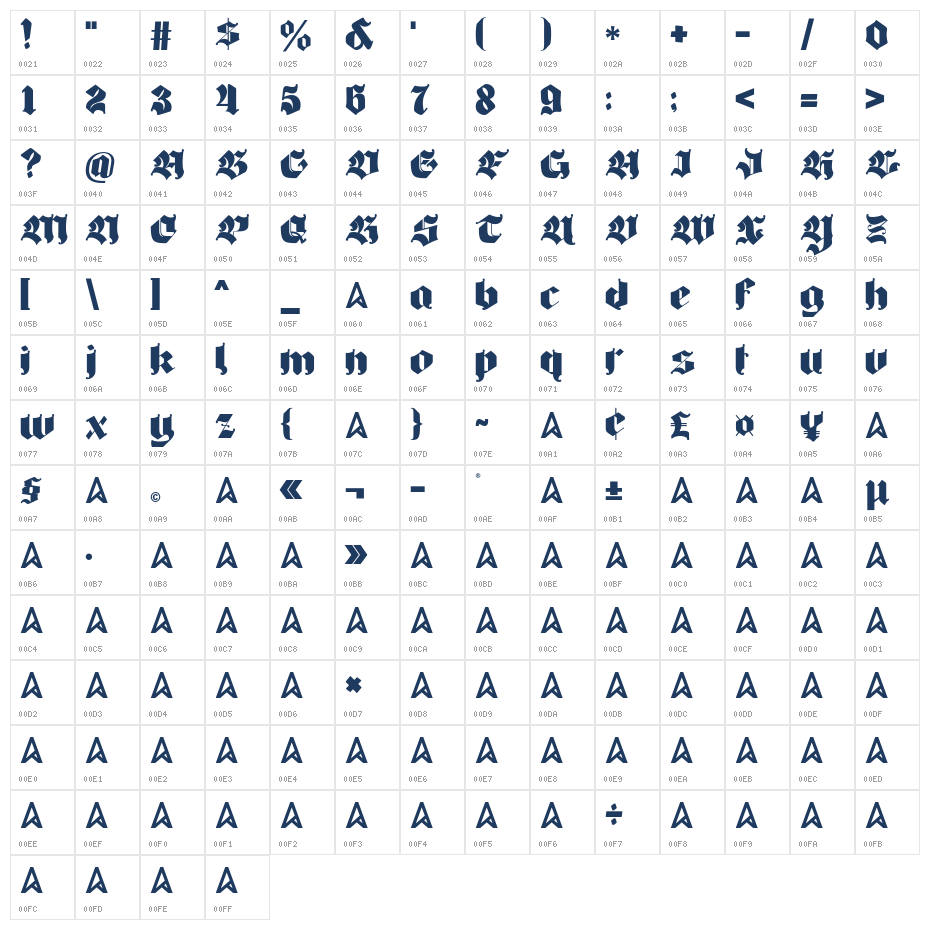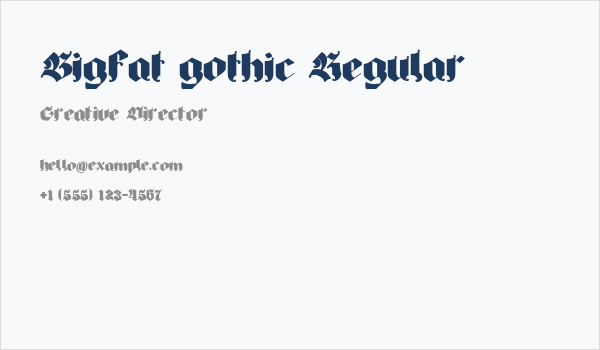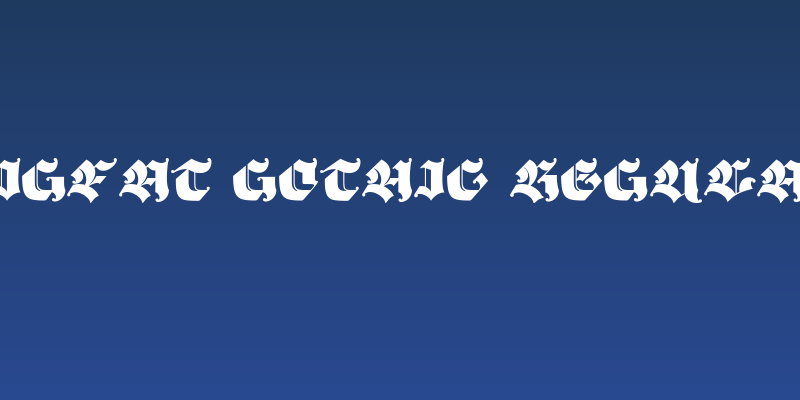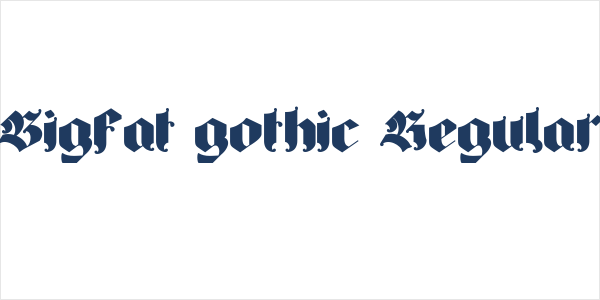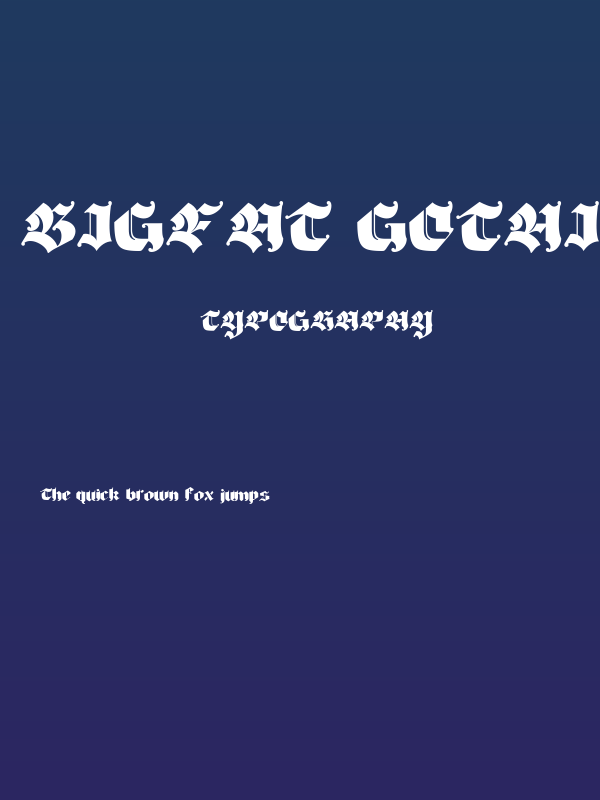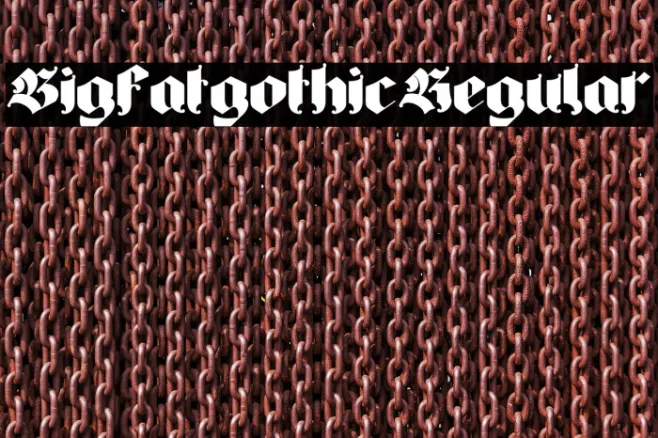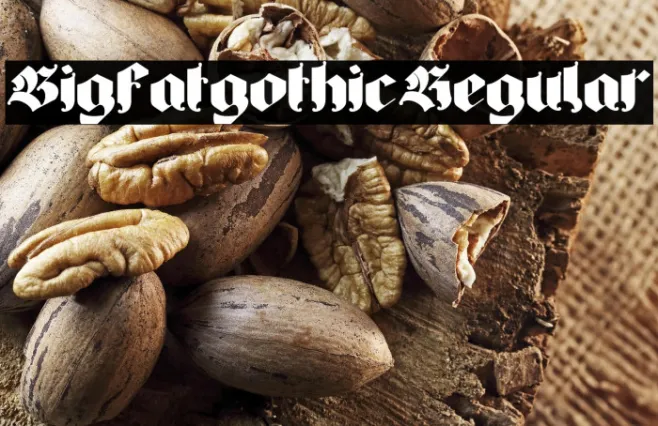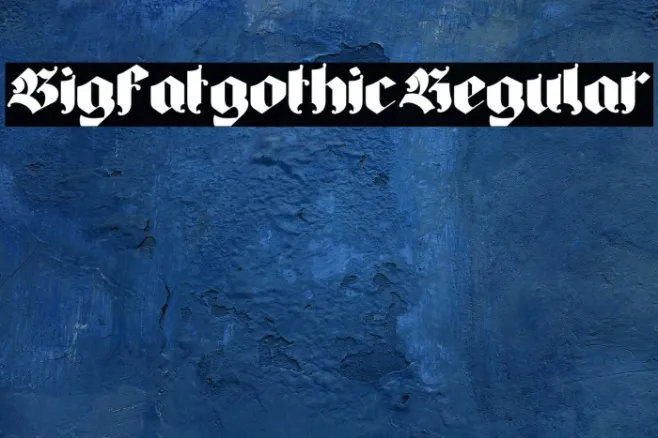
Bigfat gothic Regular Font
Bigfat gothic Regular Description
A bold, blackletter style font with ornate, Gothic-inspired letterforms and numerals, characterized by sharp angles and decorative strokes.
| Overall Style | Gothic, Medieval, Vintage |
| Use Case | Headlines, Logos, Posters, Tattoos |